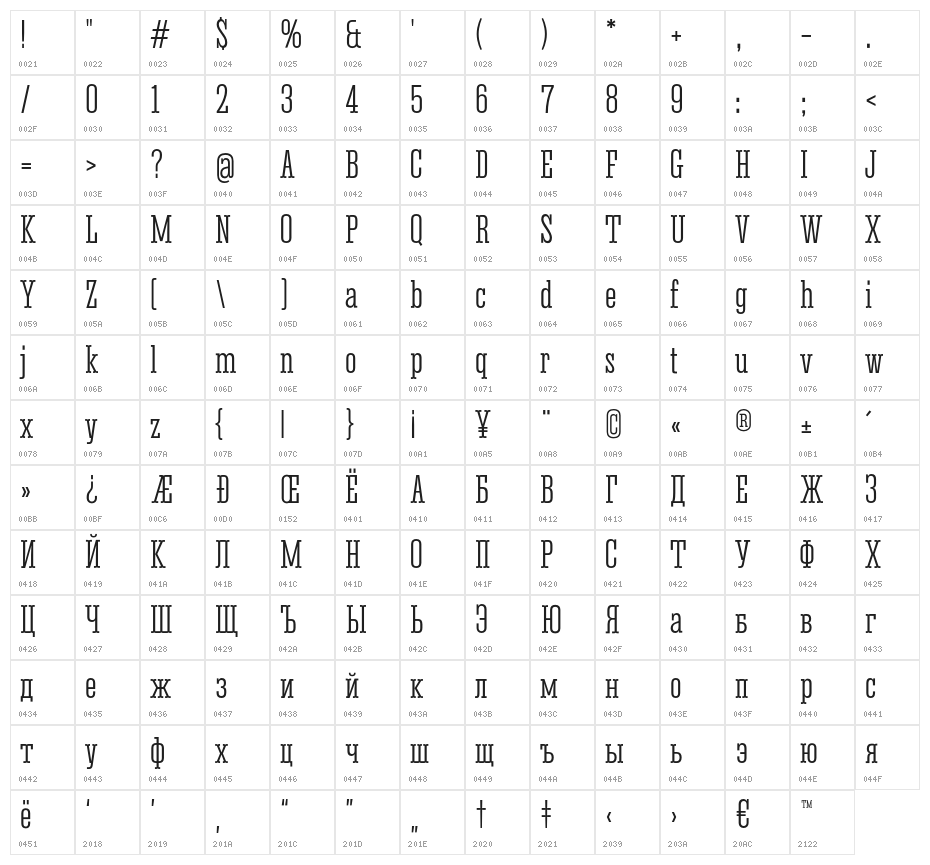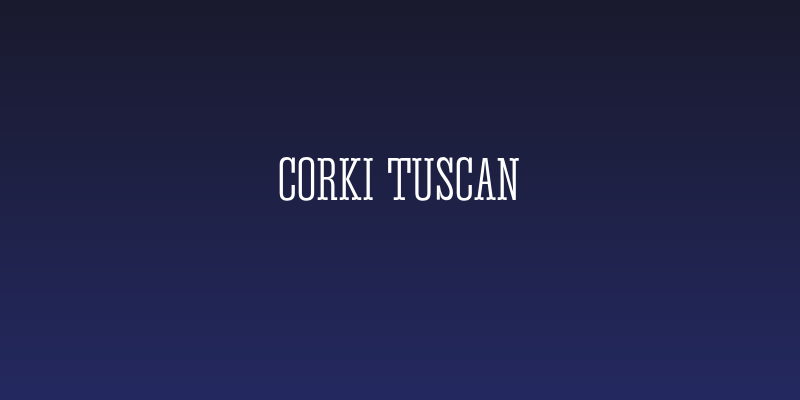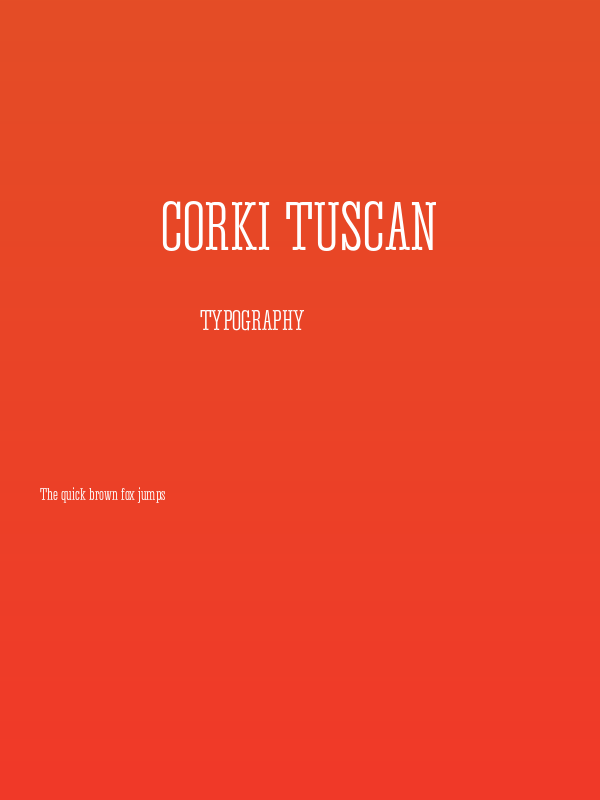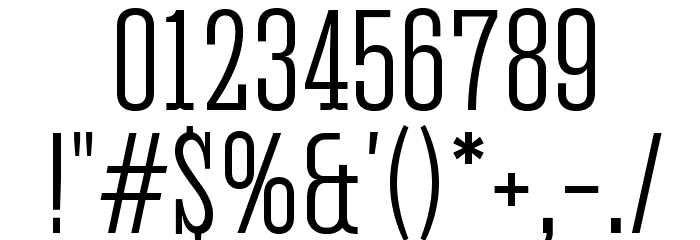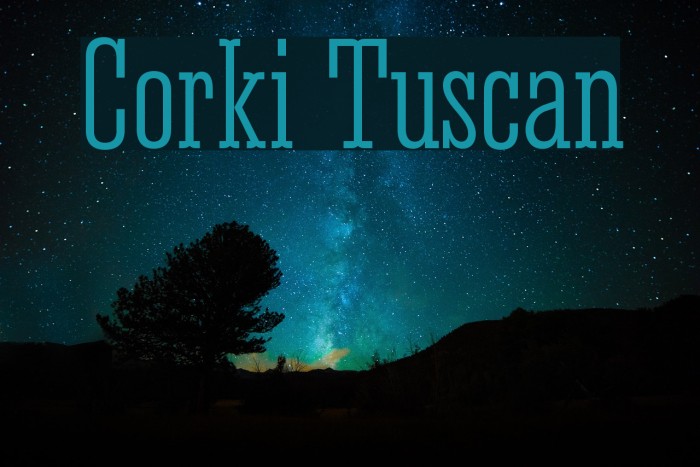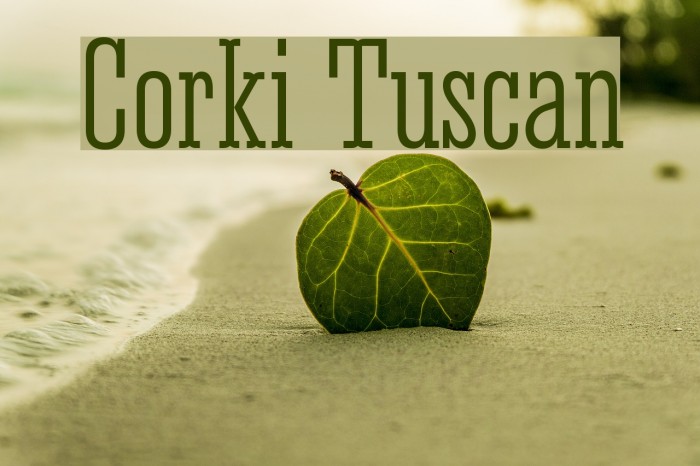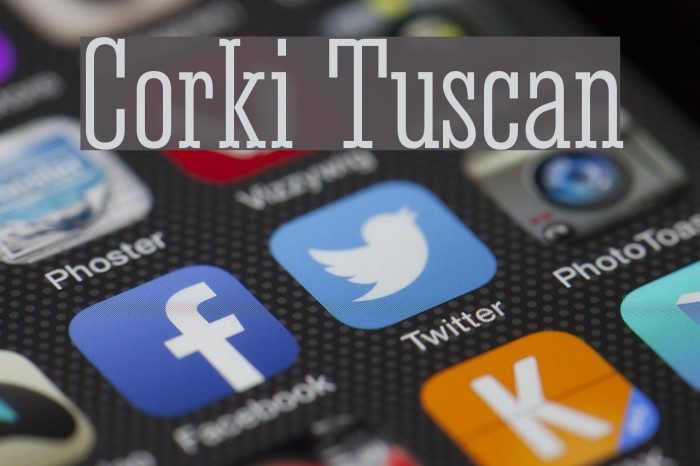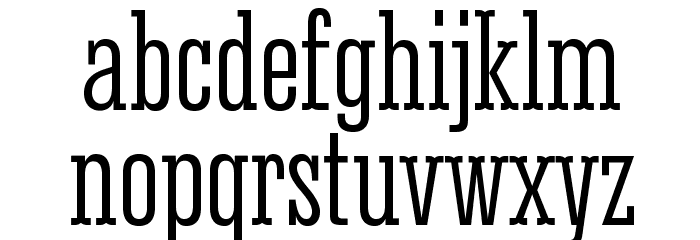
Corki Tuscan Font
Corki Tuscan Description
This font features a classic and elegant design with a strong emphasis on vertical lines and a slight curvature in the serifs. The uppercase letters are tall and commanding, while the lowercase letters maintain a consistent height, offering a harmonious balance. The numerals are clear and distinct, making them easily readable. Special characters are designed with a similar attention to detail, ensuring uniformity across the font. The overall appearance is reminiscent of traditional serif fonts but with a modern twist, making it versatile for various applications.